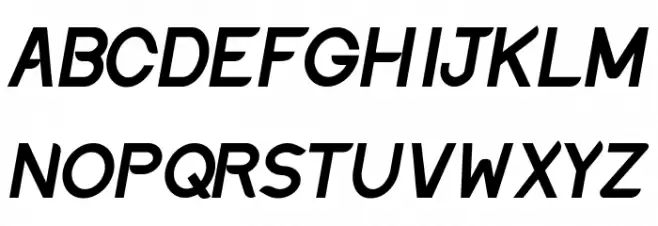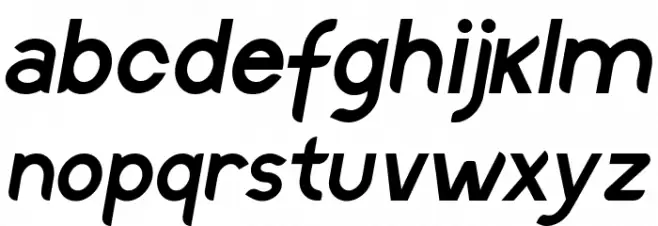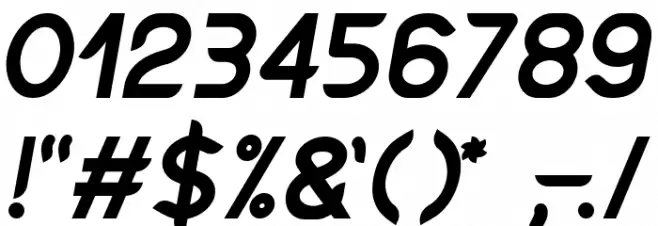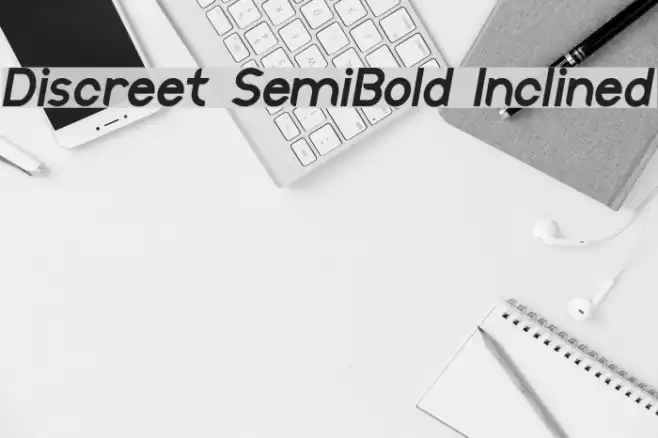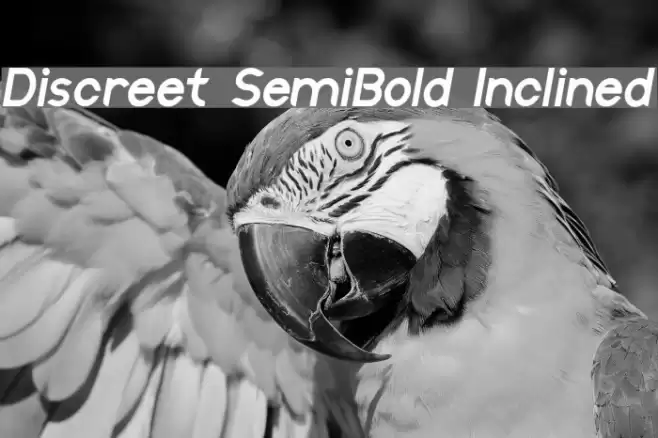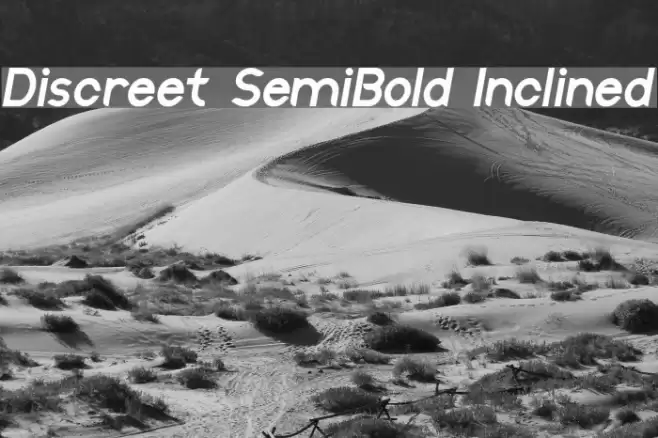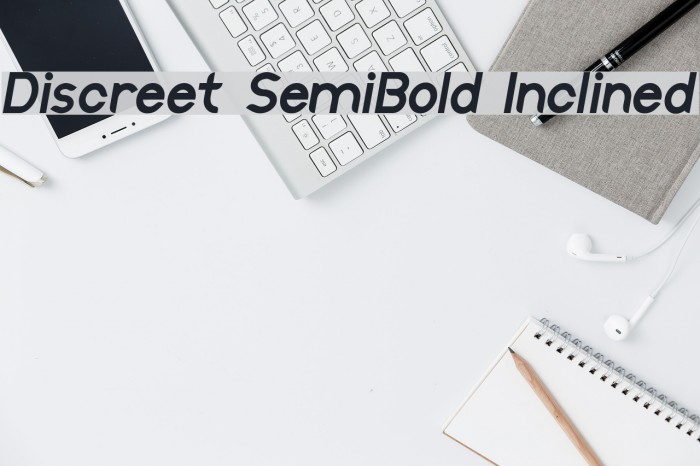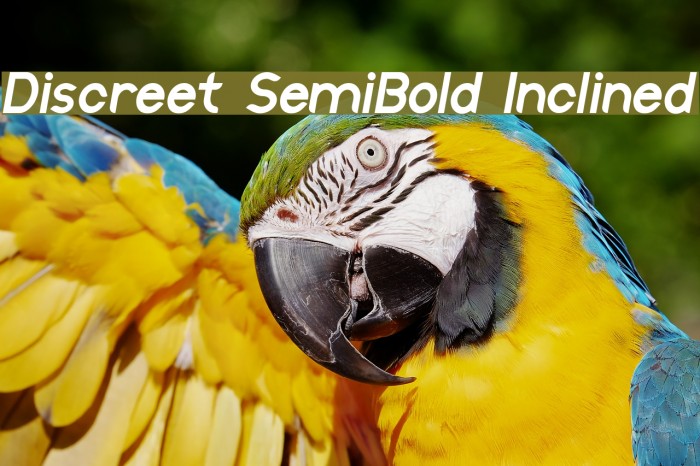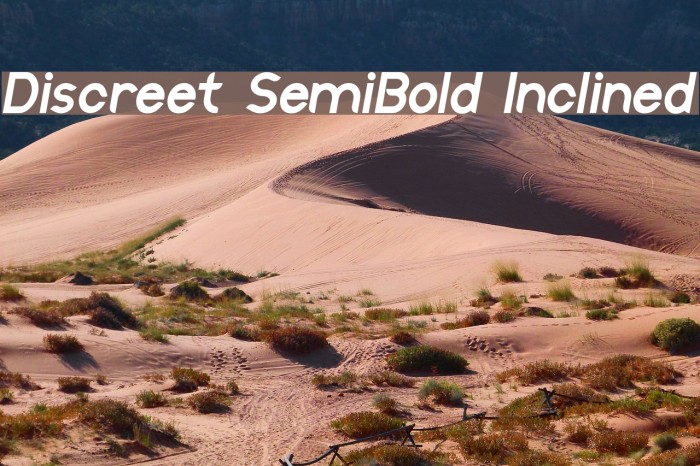
Discreet SemiBold Inclined
This font features a modern and dynamic style with a semi-bold weight and an inclined posture, giving it a sense of movement and energy. The characters are well-defined with smooth curves and clean lines, making it highly legible. The uppercase and lowercase letters maintain a consistent design, with rounded edges that add a friendly and approachable feel. The numerals are bold and clear, ensuring readability in various contexts. Special characters are included, maintaining the same stylistic features, which makes this font versatile for different applications.
A modern, semi-bold, inclined font with smooth curves and high legibility.
- Proposed Projects: Ideal for branding, advertising, and editorial design projects where a modern and energetic look is desired.
- Use Case: Headlines, Logos, Branding